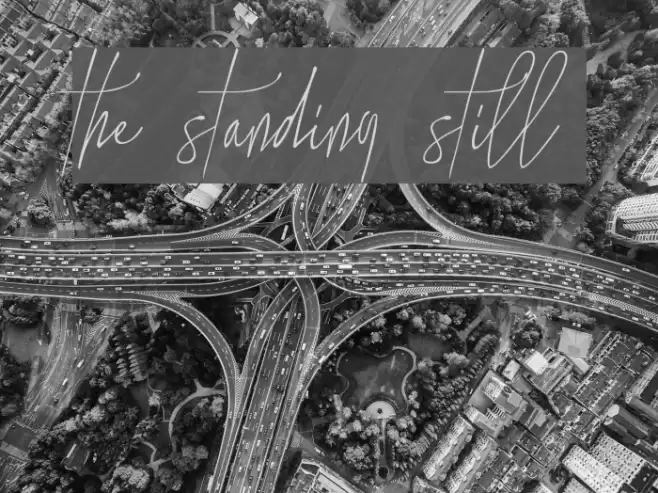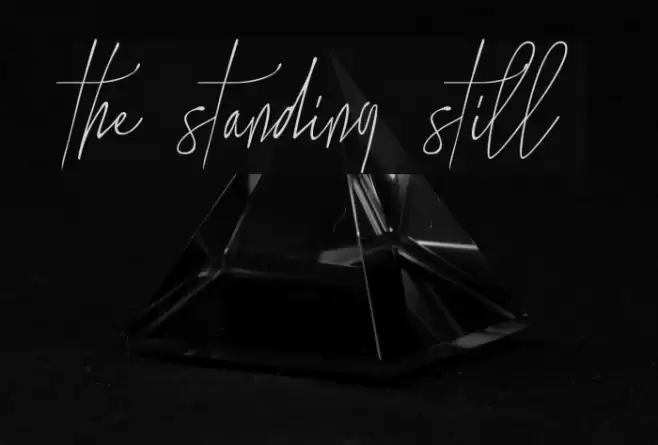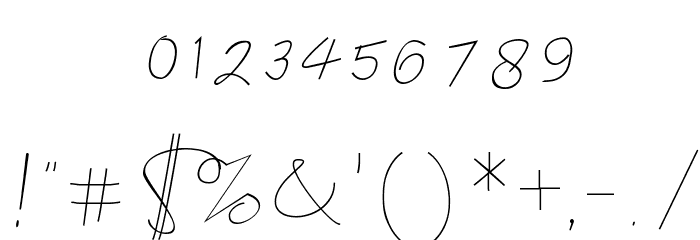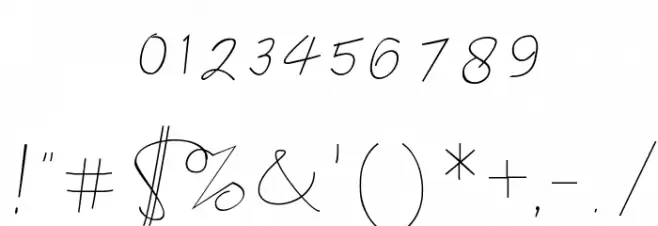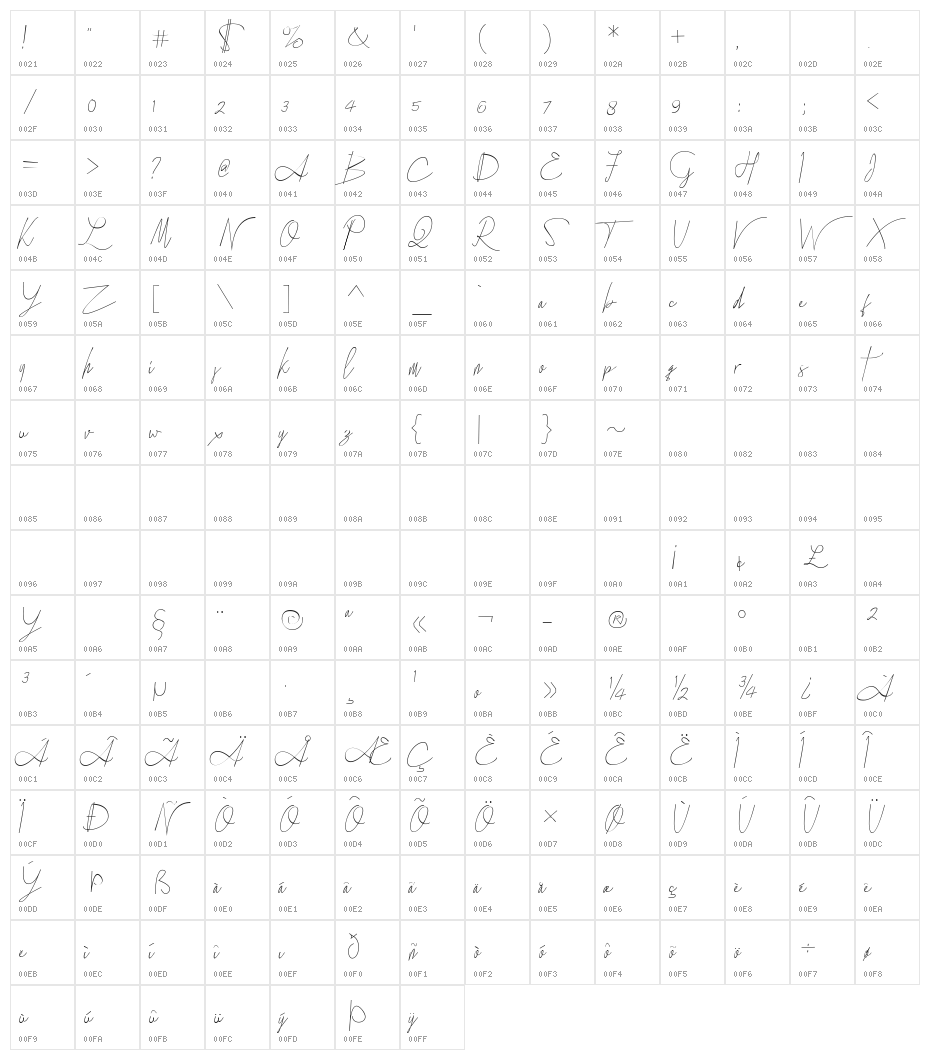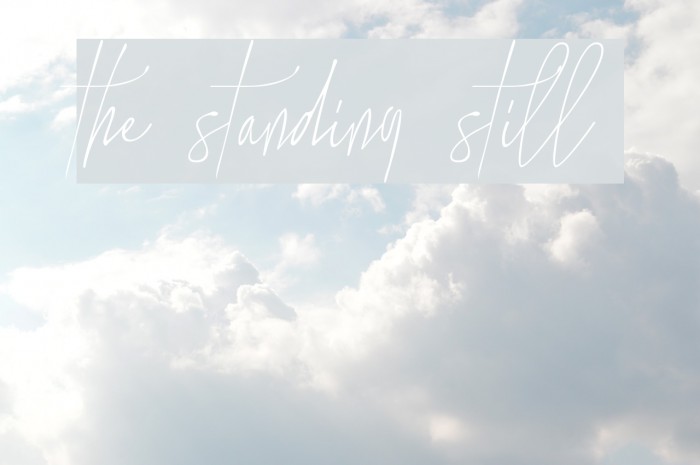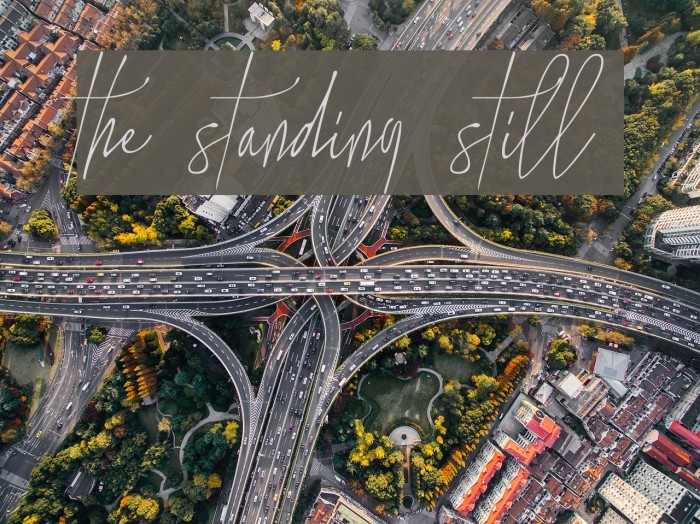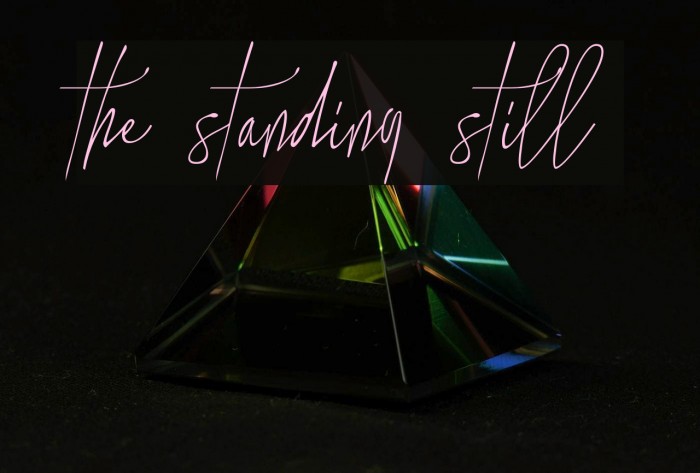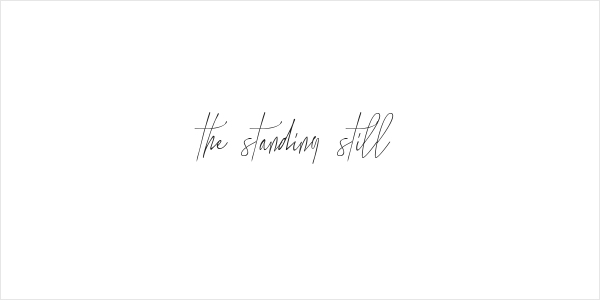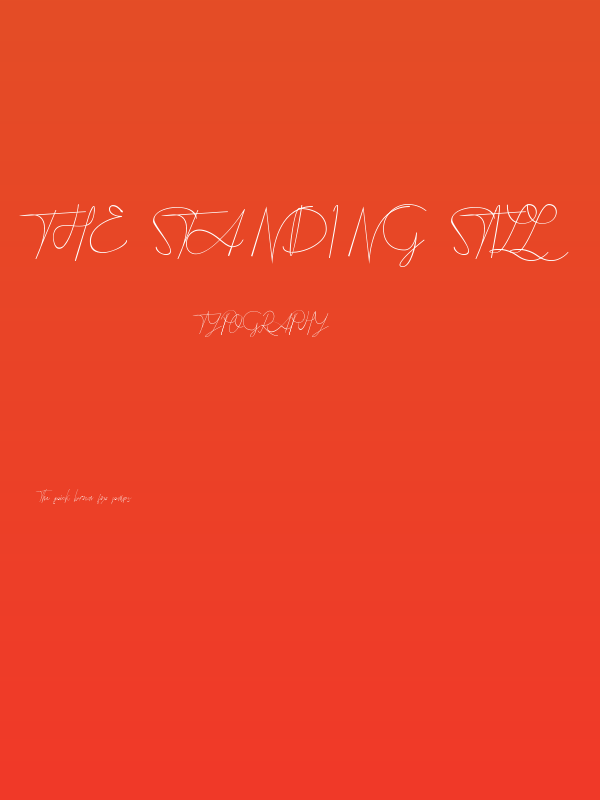
the standing still Font
the standing still Description
This font features an elegant and flowing script style, characterized by its thin, delicate strokes and graceful curves. The uppercase letters exhibit a sense of movement and fluidity, with some letters extending into long, sweeping lines. The lowercase letters maintain a consistent style, offering a harmonious blend of loops and curves that enhance its handwritten appeal. The numerals are equally stylish, maintaining the same thin strokes and fluid design. Special characters are integrated seamlessly, adding to the font's versatility. Overall, this font exudes a sophisticated and artistic vibe, making it suitable for projects that require a touch of elegance and creativity.
An elegant, flowing script font with thin strokes and graceful curves from Uncategorized fonts.
- Proposed Projects: Ideal for wedding invitations, elegant branding, artistic posters, and personal stationery.
- Weight: Light
- Overall Style: Elegant, Artistic
- Use Case: Logos, Invitations, Decorative text